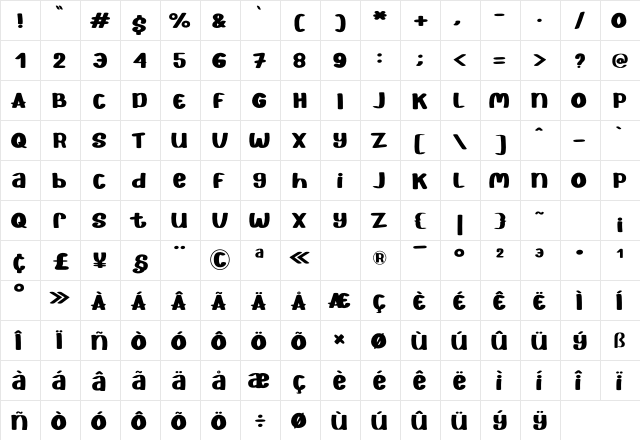
Eye Monsta Regular Font Preview
Eye Monsta Regular
Eye Monsta Regular Font Details
| Foundry | Illushvara Design |
| Designer | Bayu Suwirya |
Design Context for Eye Monsta Typeface
Eye Monsta is a composed and adaptable typeface that performs quietly and consistently across a wide range of design contexts.